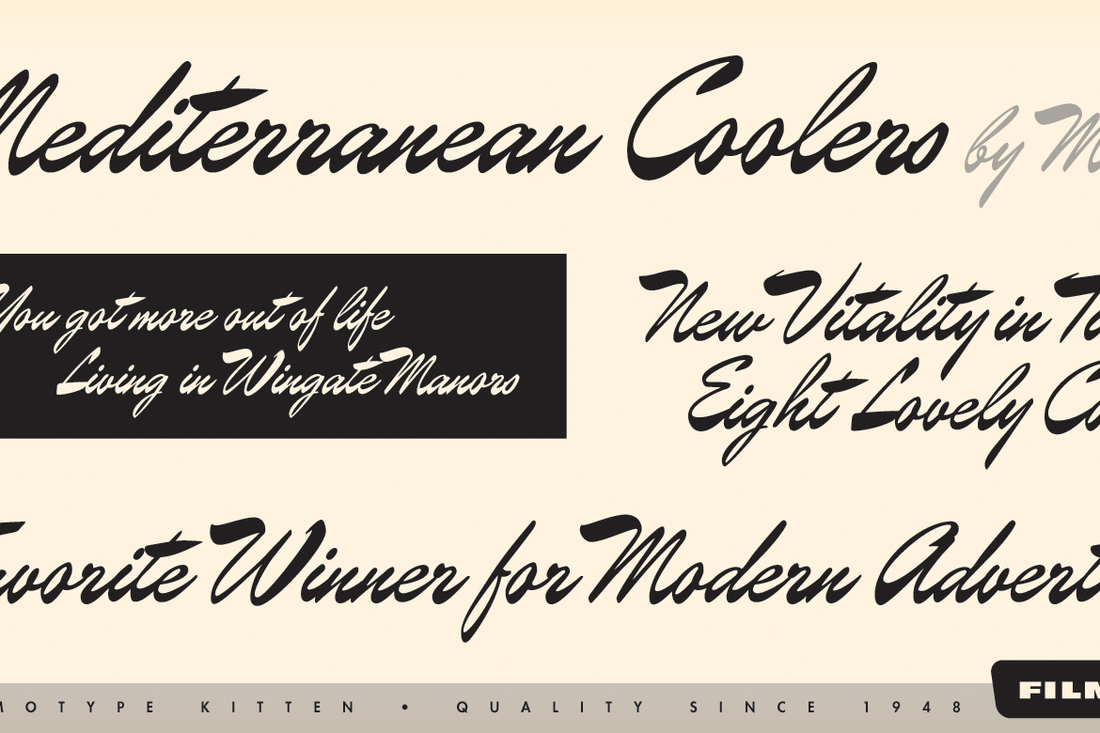
NEW Filmotype Fonts Have Arrived!
We continue to be hard at work reviving even more great new fonts from the amazing Filmotype font library and we're pleased to announce the release of FOUR amazing new typefaces you're sure to love! From dazzling sho card style brush scripts to bold and wide serif typefaces kissed with the charm of late 1940s Art Deco. Take a look HERE!